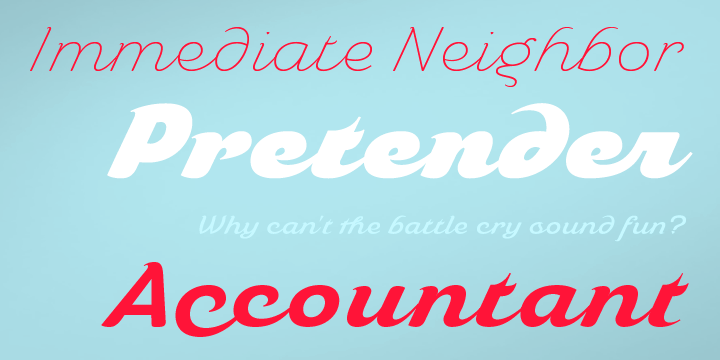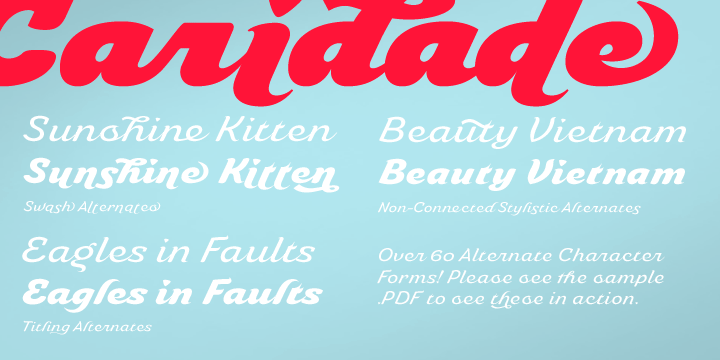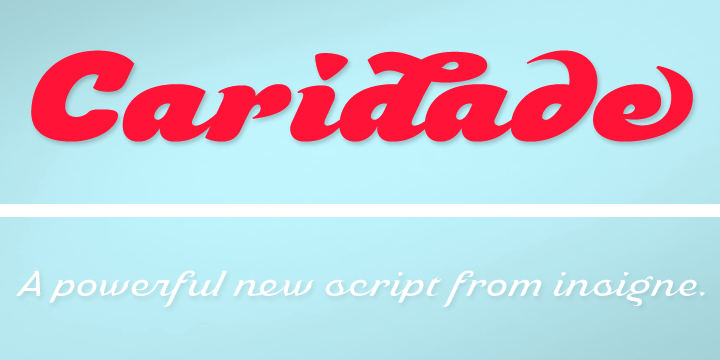
Caridade is a script font family. This typeface has six styles and was published by Insigne Design.
Caridade is a bold and powerful script face. It draws some inspiration from heavy brush drawn vintage hand lettering but its heavy weight is much thicker with plenty of impact and more contemporary letterforms. The face offers a wide array of weights, from the powerful Heavy weight to the graceful Thin. Caridade can get the job done for many unique design tasks.
Caridade includes many useful OpenType features, including a set of non-connecting alternates, 40 ligatures, and two types of end letterforms. OpenType features include ornaments, swash endings, ending contextual alternates, discretionary ligatures, ligatures and three different stylistic sets filled with alternates. In total, there are over 60 alternate letterforms. Please see the sample .pdf to see these features in action.
OpenType capable applications such as Quark or the Adobe suite can take full advantage of the automatically replacing ligatures and alternates. This family also includes the glyphs to support a wide range of languages.